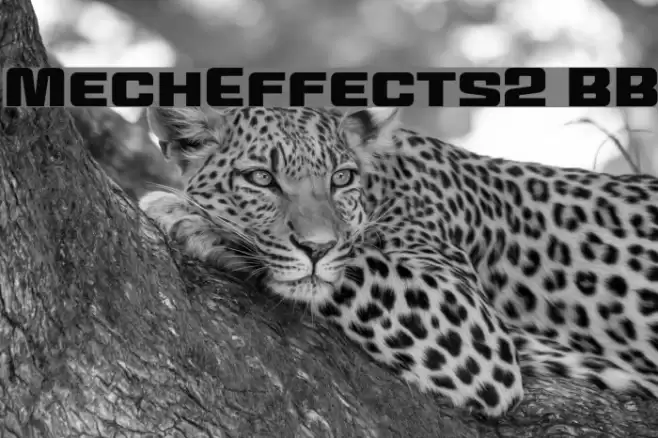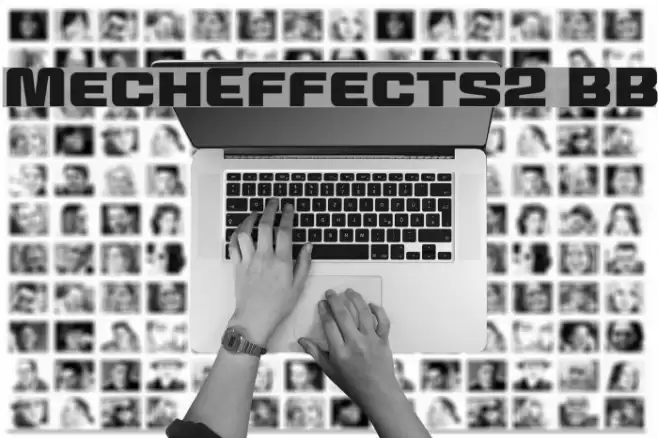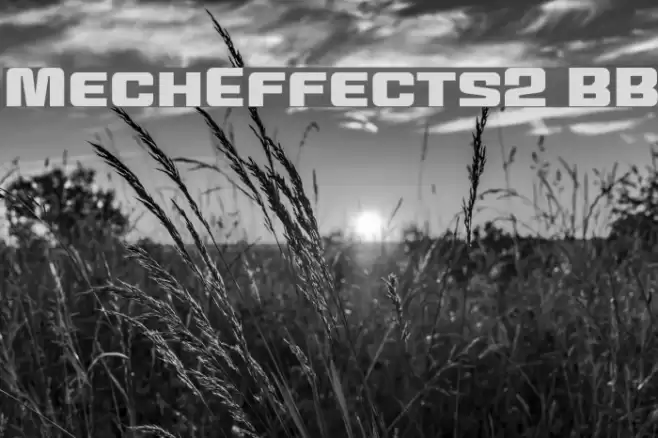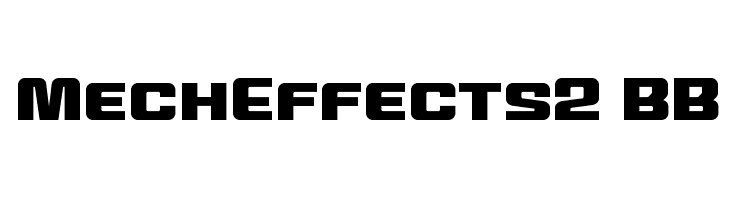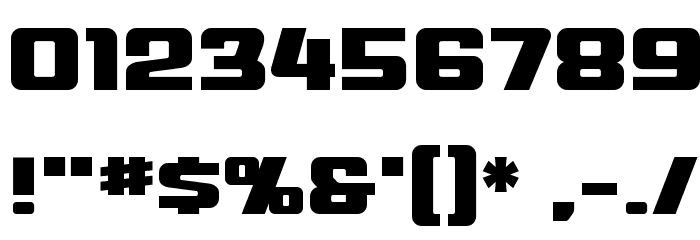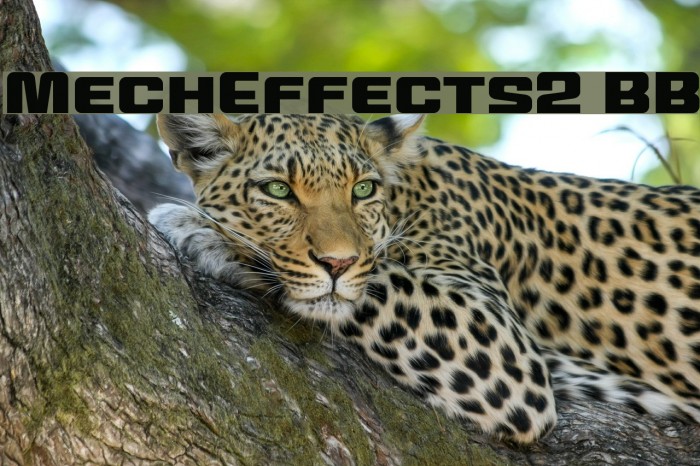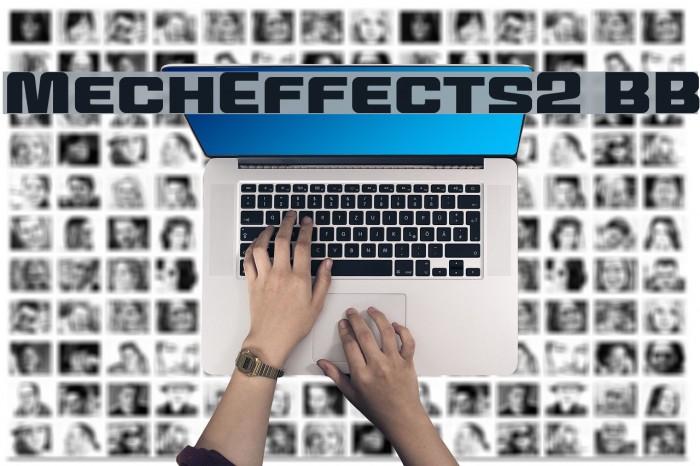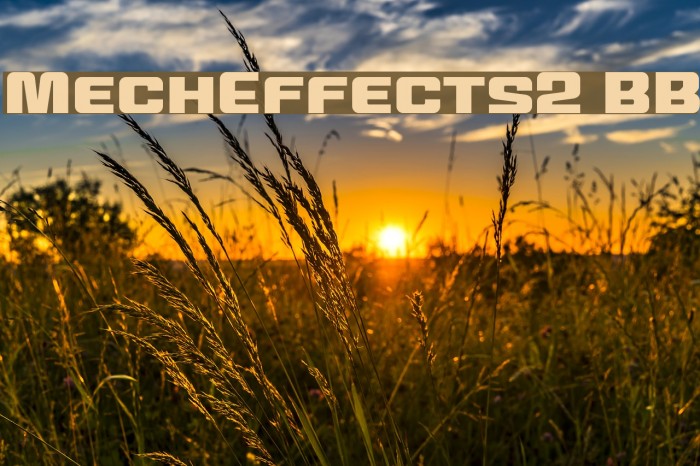
MechEffects2 BB Font
MechEffects2 BB Description
This font features a bold, industrial design with strong geometric shapes and a futuristic aesthetic. The characters are uniformly thick, providing a robust and impactful appearance. The uppercase letters are particularly striking, with a blocky, mechanical feel that suggests strength and durability. The lowercase letters maintain this theme, offering a cohesive look across all text. Numbers and special characters are designed with the same boldness, ensuring consistency throughout. The font's style is ideal for projects that require a modern, tech-inspired look.
A bold, industrial font with a futuristic, geometric design from Uncategorized fonts.
- Proposed Projects: Ideal for technology branding, video game titles, sci-fi posters, and industrial-themed designs.